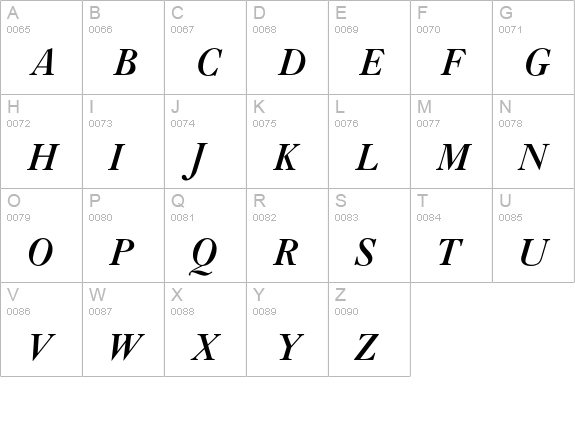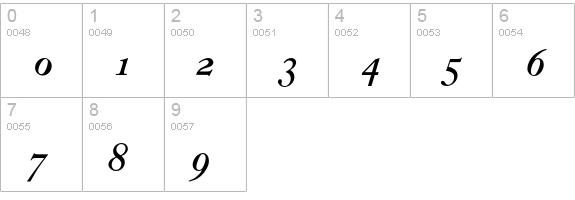
CaslonBoldH-Italic Font Details
CaslonBoldH-Italic is a distinctive, italic variant in the CaslonBoldH typeface family \xE2\x80\x94 well suited to design and typography projects.
CaslonBoldH-Italic font is a striking and elegant typeface that exudes a sense of sophistication and classic beauty. Its bold and italicized design adds a touch of flair and emphasis to any text, making it perfect for headlines, titles, and other attention-grabbing elements. With its strong presence and distinctive style, CaslonBoldH-Italic commands attention while maintaining a timeless appeal. What sets CaslonBoldH-Italic font apart is its versatility and readability, making it suitable for a wide range of design projects. Whether you're creating a magazine layout, branding materials, or invitations, this font will add a touch of elegance and professionalism to your work. Best of all, CaslonBoldH-Italic font is available for free download at FontsMarket.com. This means you can easily access and use this beautiful typeface in your projects without any cost. Don't miss the opportunity to enhance your designs with the classic charm of CaslonBoldH-Italic font. Download it now and elevate your typography game!